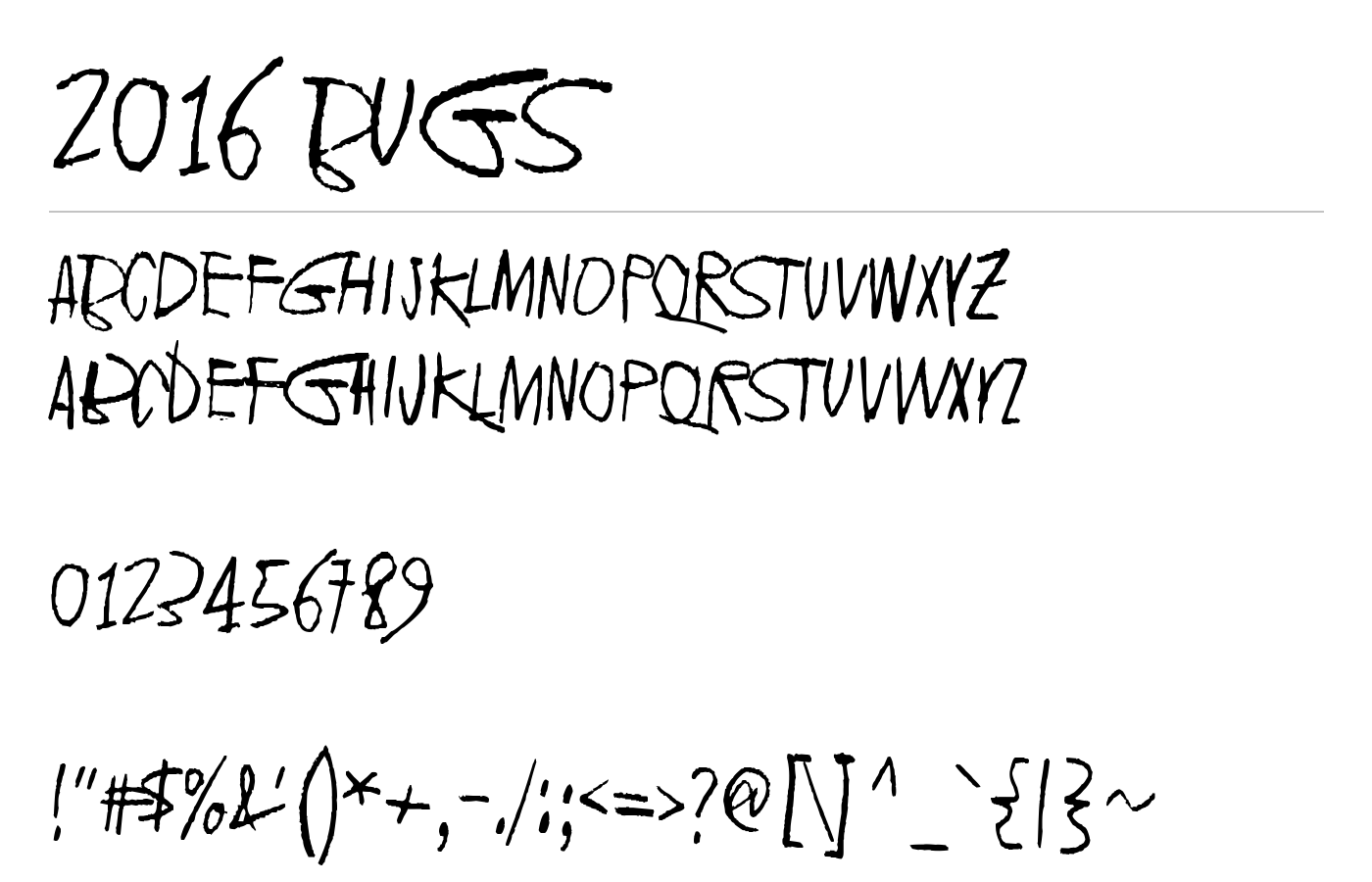
2016 Bugs is a quirky, hand-drawn sans serif font that feels raw and energetic with its irregular, jagged strokes and uneven letterforms. Its narrow width and lively style give it a playful and slightly chaotic vibe, perfect for creative projects needing a distinctive, casual, and expressive look. This font works well in posters, comics, or edgy branding where a handwritten, unconventional personality is desired.
2016 Bugs Font